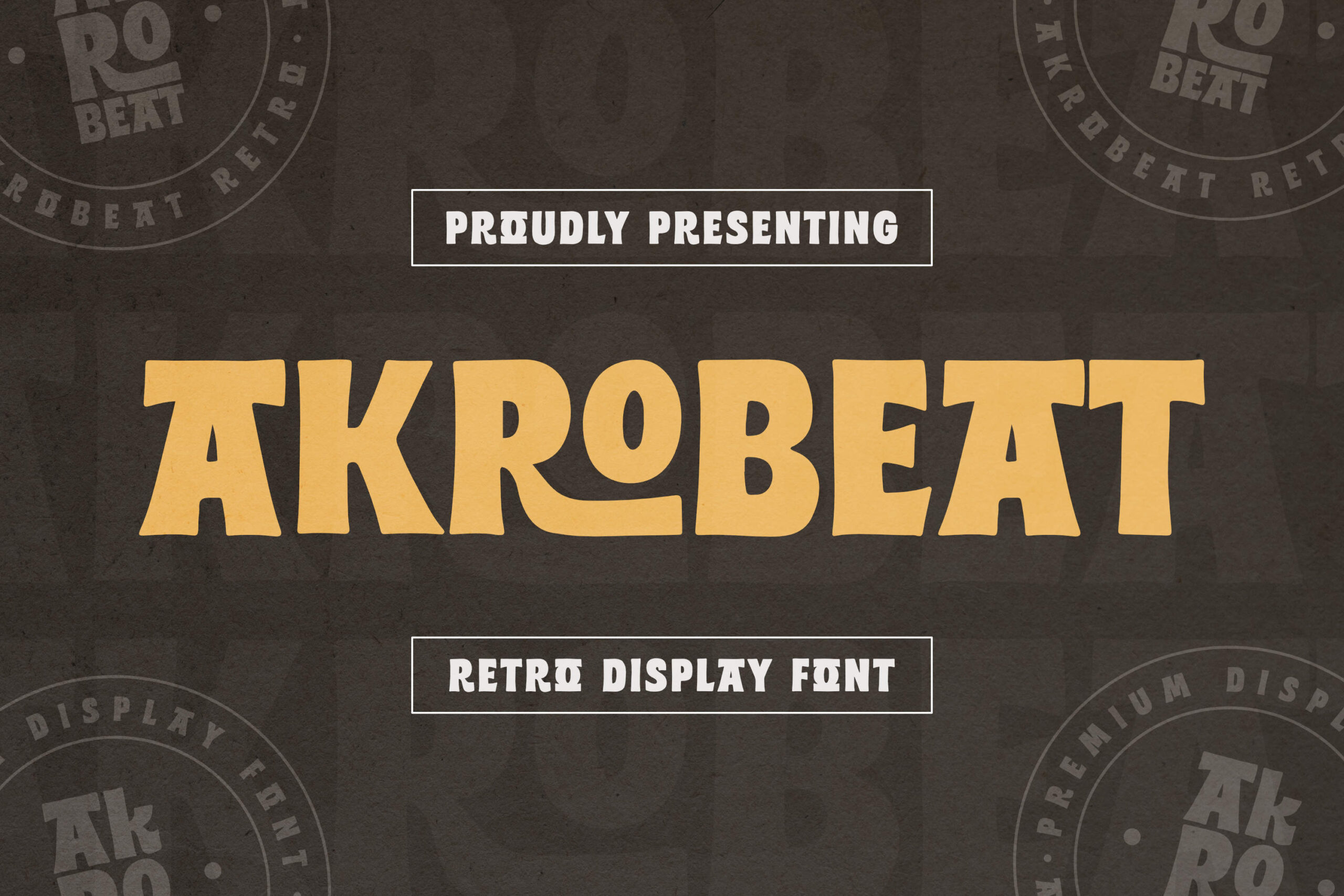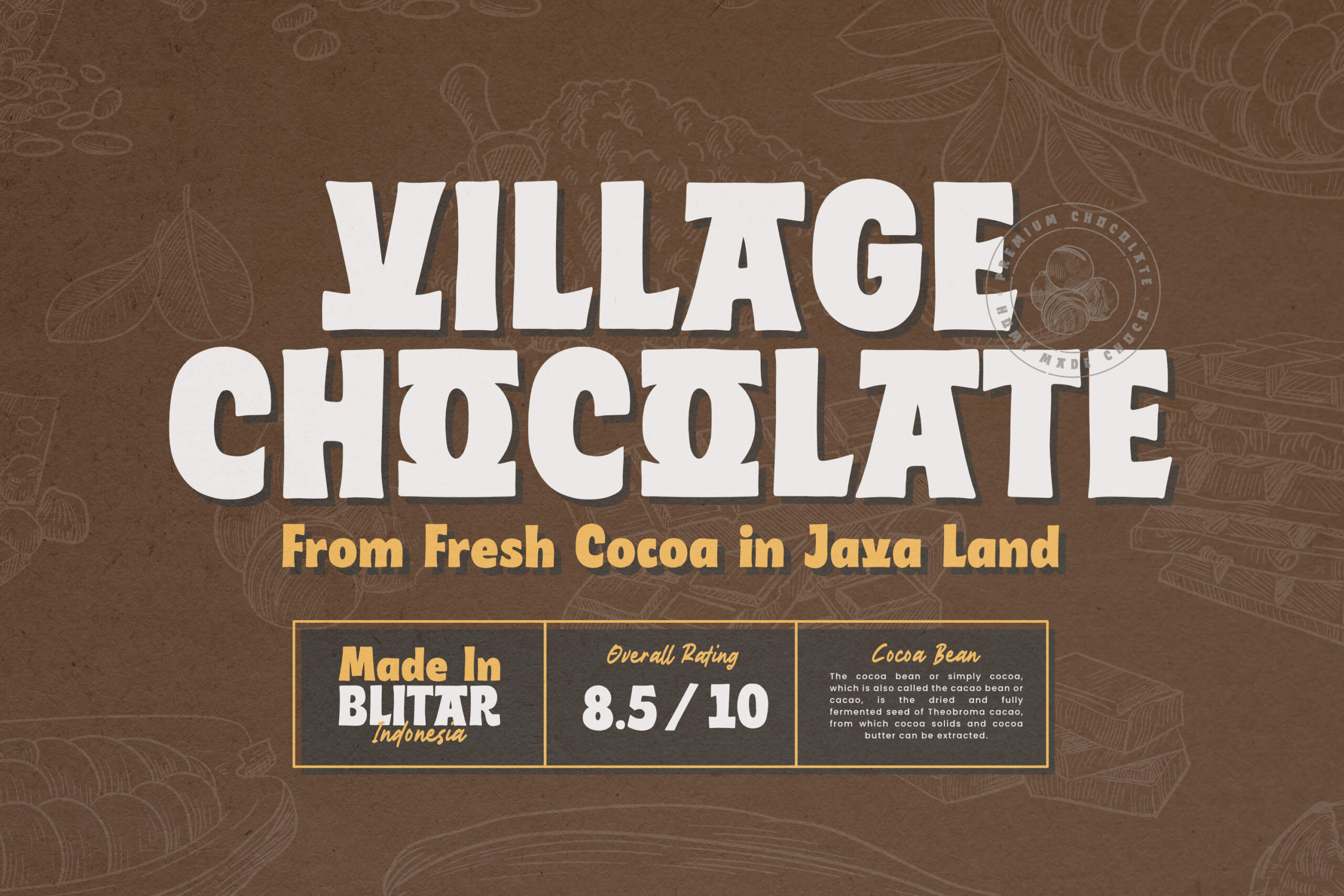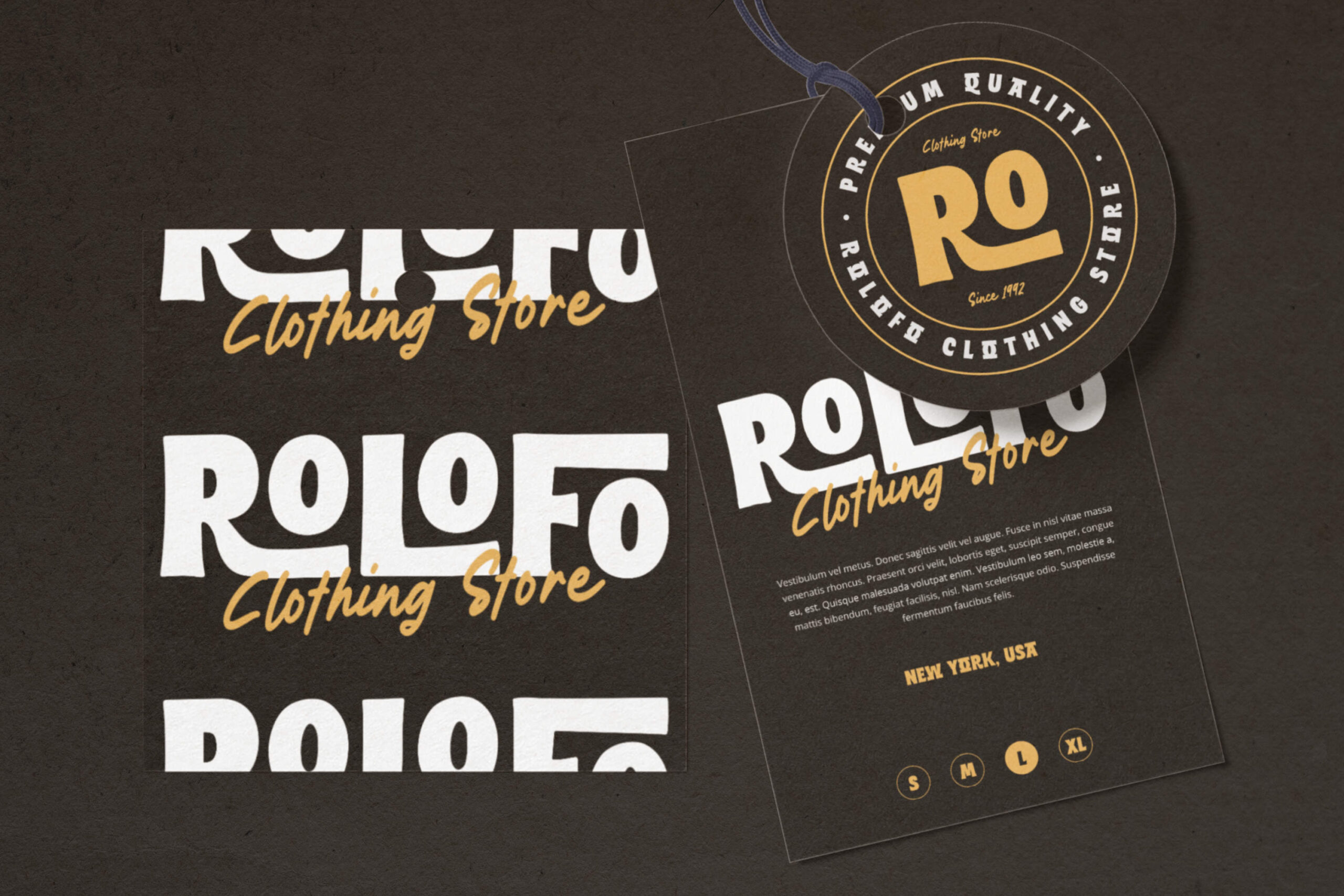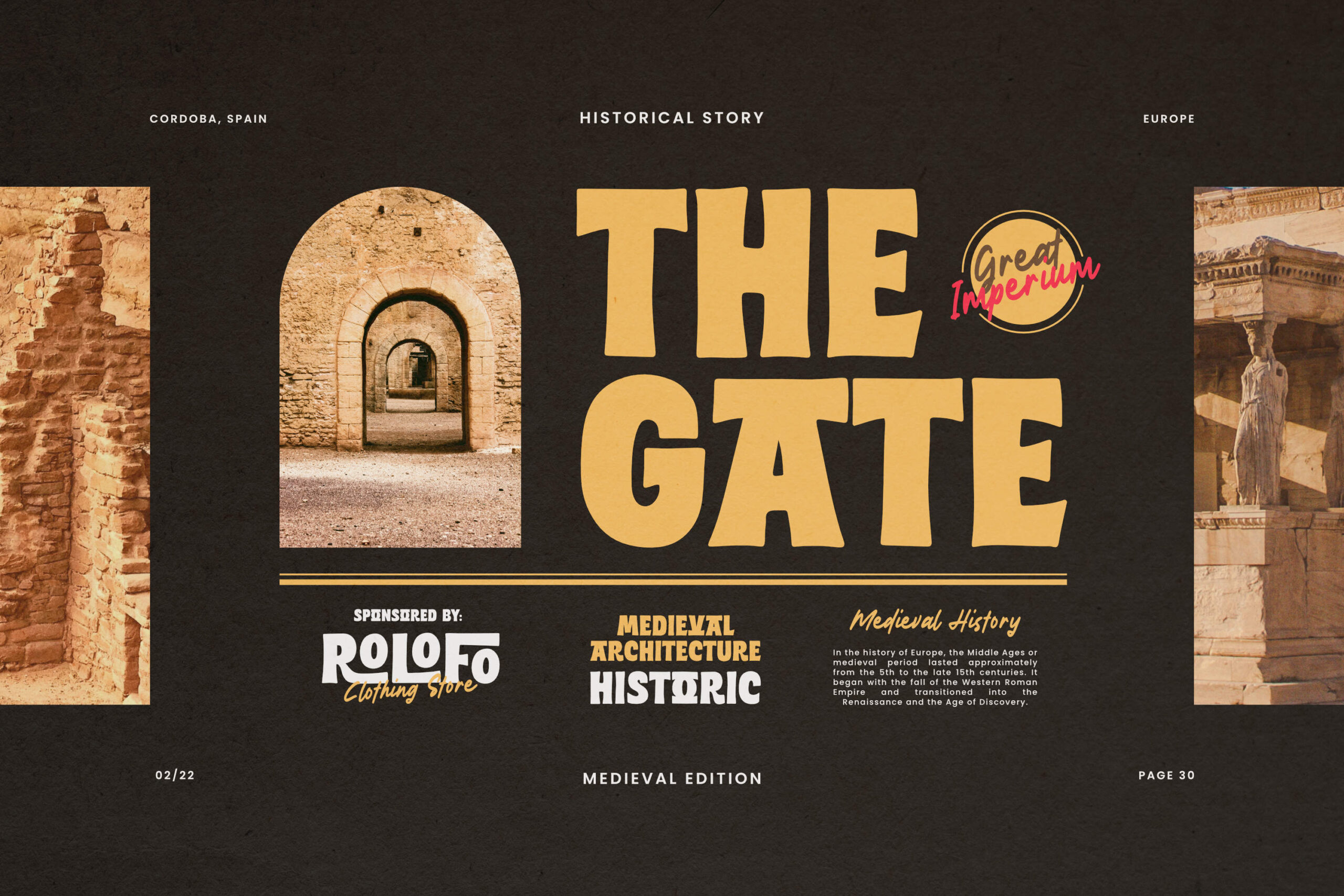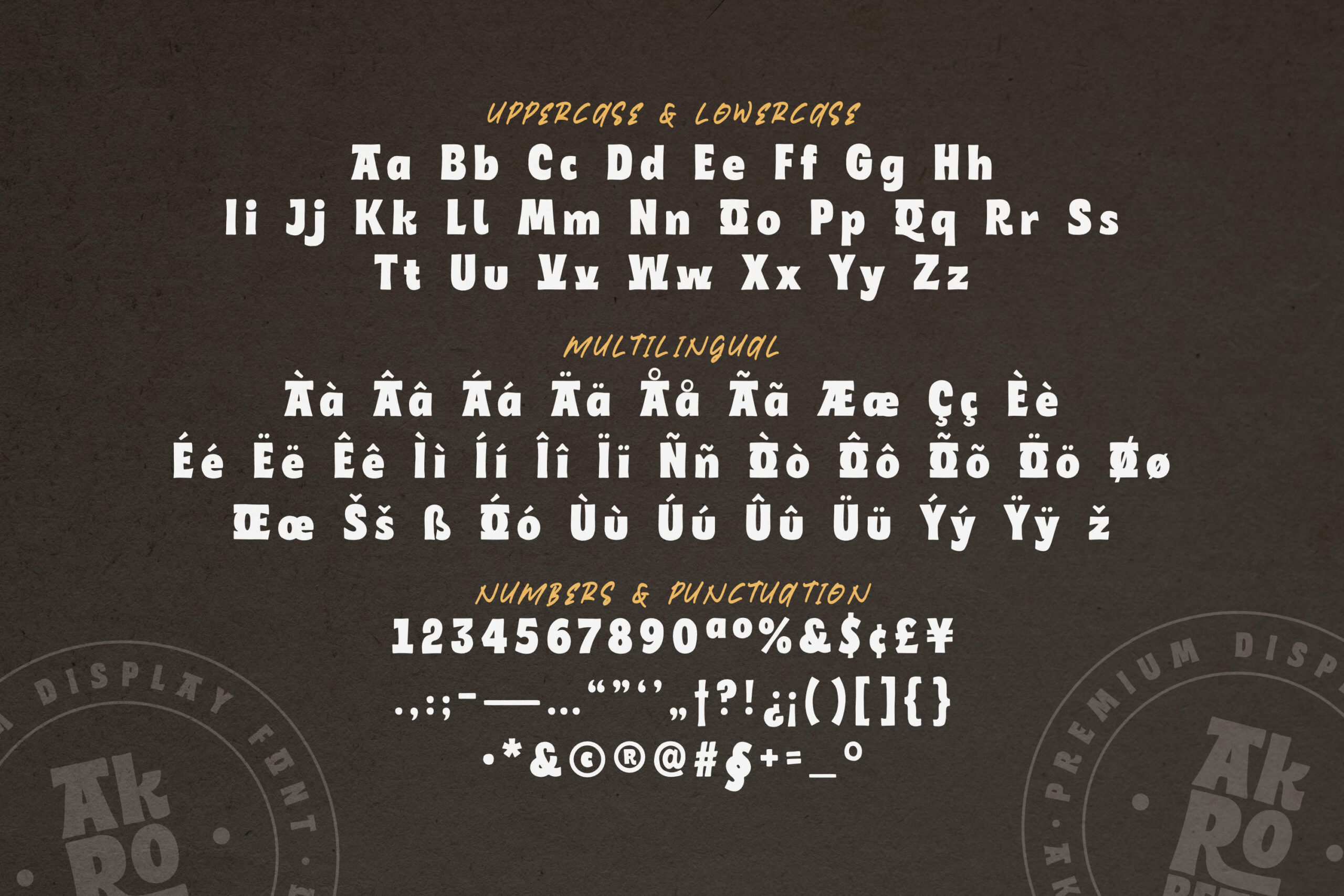
Akrobeat is a bold and playful retro display font that captures the rhythm of vintage aesthetics with a fun and expressive twist. Its chunky letterforms, whimsical alternates, and groovy shapes bring out a strong personality, perfect for branding, packaging, and nostalgic projects that need a loud visual voice. The typeface features unique stylistic elements like the quirky curved leg on the “R” and custom-styled “O”, giving it a distinct presence in any layout.
With full uppercase, lowercase, multilingual support, numbers, and punctuation, Akrobeat is highly versatile for both headline and branding use. Whether you’re working on a chocolate product label, streetwear logo, or a historical editorial spread, this font delivers charm and boldness in one retro-infused package.